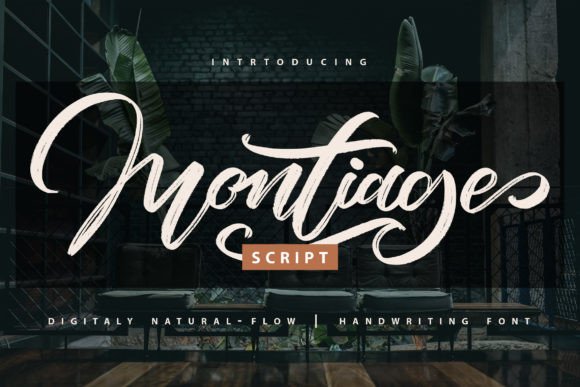
Welcome to the enchanting world of Montiage Font, a masterpiece crafted by the renowned Vunira. This extraordinary script font weaves a spell of elegance and grace, holding the power to transform your digital creations into breathtaking works of art.
Immerse yourself in the mesmerizing flow of Montiage Font. Its cursive strokes dance across the page, exuding a timeless charm that will captivate your audience. Each letter is a testament to the artistry of its creator, capturing the essence of handwritten beauty with precision and flair.
Unleash your imagination and explore the limitless possibilities that await with Montiage Font. Whether you seek to craft personalized invitations, design captivating social media posts, or create eye-catching branding materials, this font will serve as your faithful companion. Its versatility knows no bounds, allowing you to express your unique style in a myriad of creative endeavors.
Transform your digital presence into a symphony of sophistication with Montiage Font. Its elegant curves and sweeping flourishes will add a touch of undeniable charm to every project you undertake. Let your words dance with grace, and watch as your designs blossom into works of art.
Indulge in the beauty of Montiage Font today, and embark on a journey of creative fulfillment. Its enchanting allure will captivate your audience, leaving an everlasting impression that will inspire and enchant.